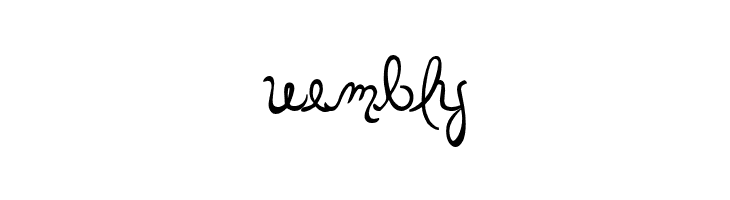
• LittleBliss
A whimsical, handwritten font with flowing curves and dynamic contrast.
• LittleBlissBold
A playful, cursive font with flowing loops and decorative swirls.